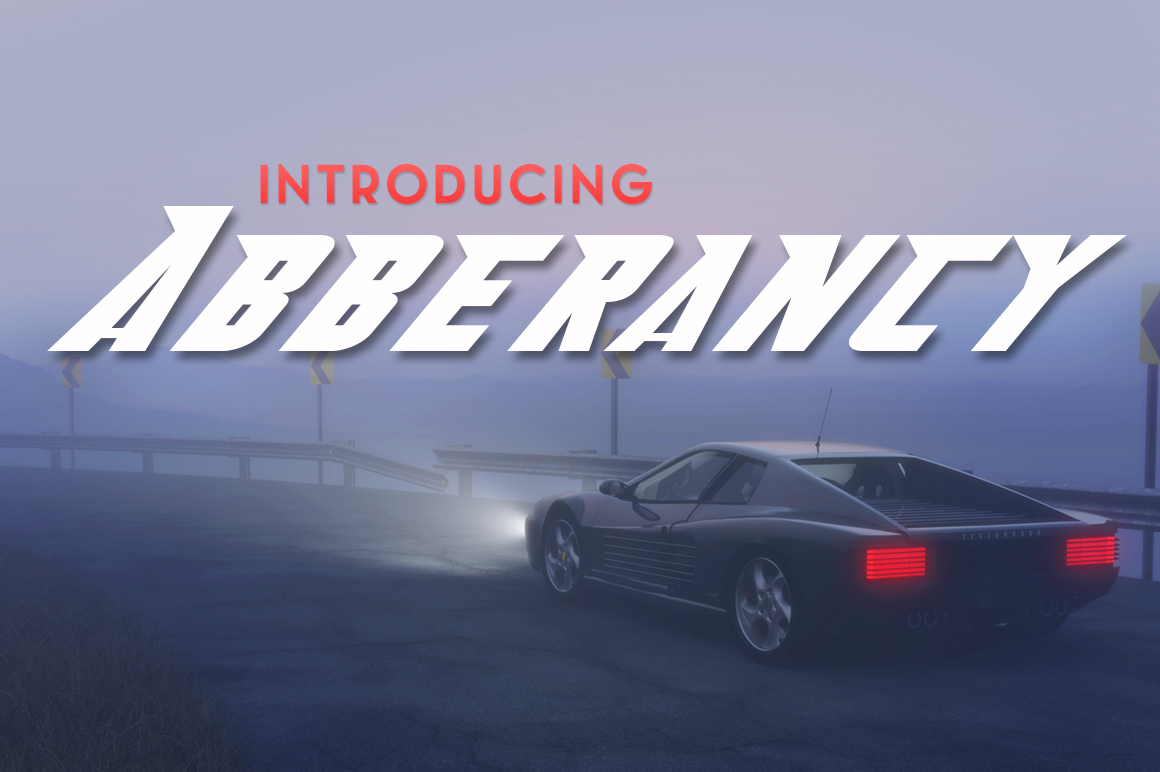
HomePersonal Use FreeAbberancy Personal Use Free Abberancy FacebookXPinterestWhatsApp 1 of 1 About Abberancy Font Abberancy is a free font from Typodermic. This slanted sans serif font is square and speedy, meant to evoke the feeling of fast vehicle graphics. DOWNLOAD ON CREATIVE FABRICAThis font is sold and delivered by Creative Fabrica. Font Canyon may earn a commission if you buy through this link. People also explored Rubicon Font Children Handwritten Font Bounty Font Syllia Font Bladekade Font Easy Messy Font Underhand Font Kisah Ceritra Font Simple Planner Font 432 0 TagsAbberancy Font Previous articleAirmoleNext articleBakk Trieng LEAVE A REPLY Cancel reply Comment: Please enter your comment! Name:* Please enter your name here Email:* You have entered an incorrect email address! Please enter your email address here Website: Save my name, email, and website in this browser for the next time I comment. Personal Use Free Little Pigeon Personal Use Free Read more about this font Super Discount Personal Use Free Read more about this font Pan Pizza Personal Use Free Read more about this font Hello Ketta Personal Use Free Read more about this font BLOG Fonts That Capture the Spirit of New York City New York City is more than just a place—it’s an experience, a rhythm, a visual language... The 10 Best Handwriting Fonts to Add Personality to Your Designs Transform Your Website: Elevate Your Typography with 7 Best Web Font Generators Free Fonts Risk: Why Free Fonts Can Be Dangerous for Designers